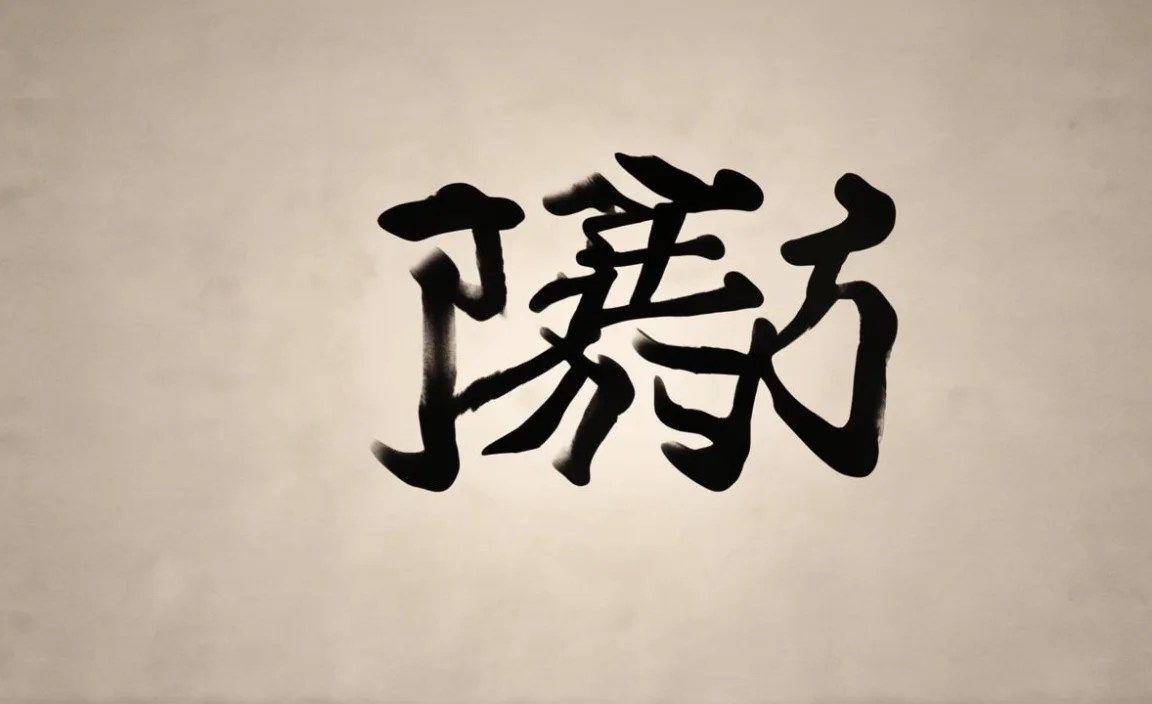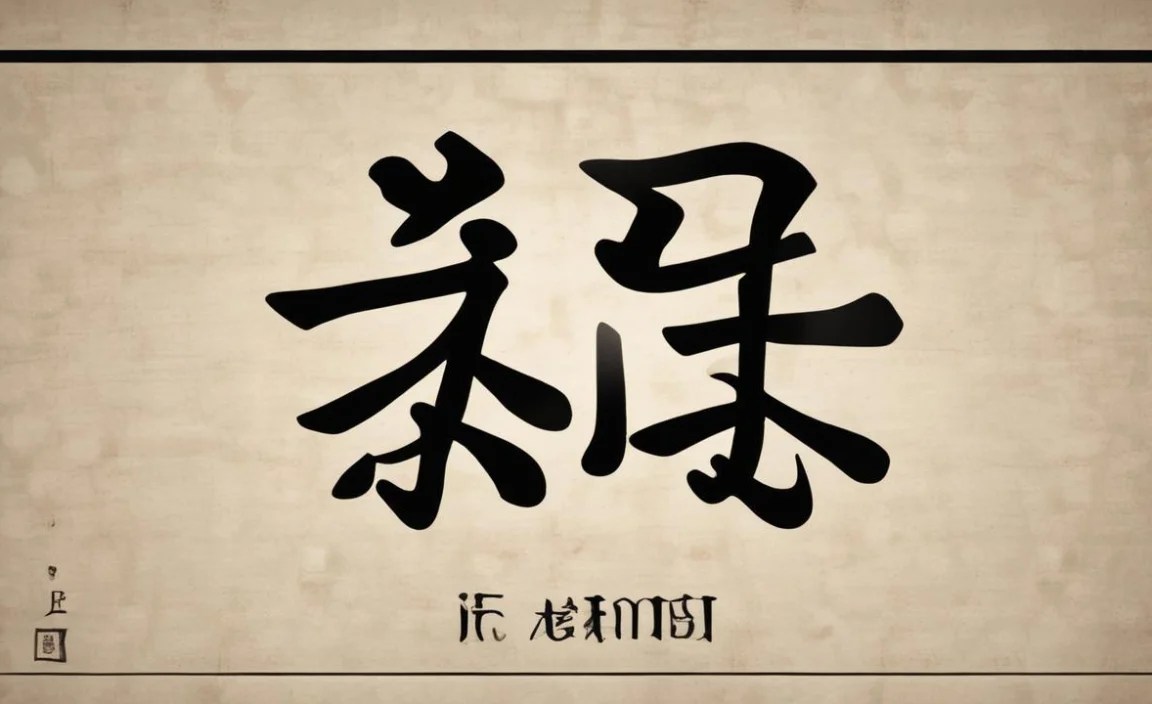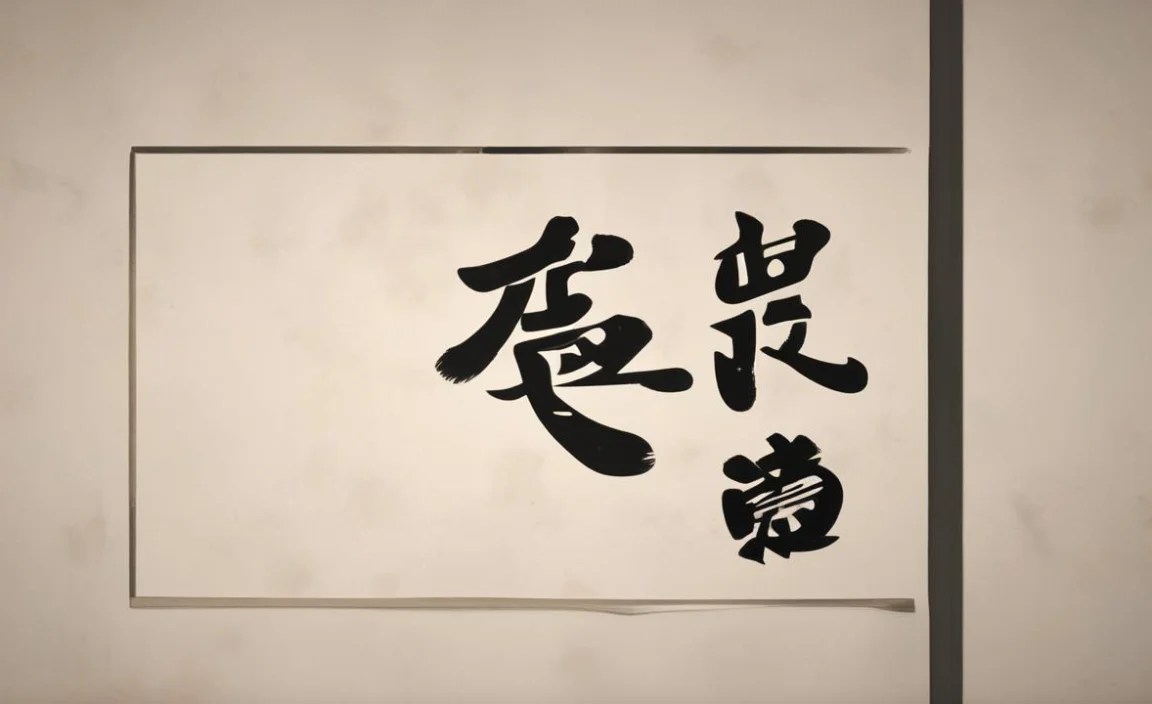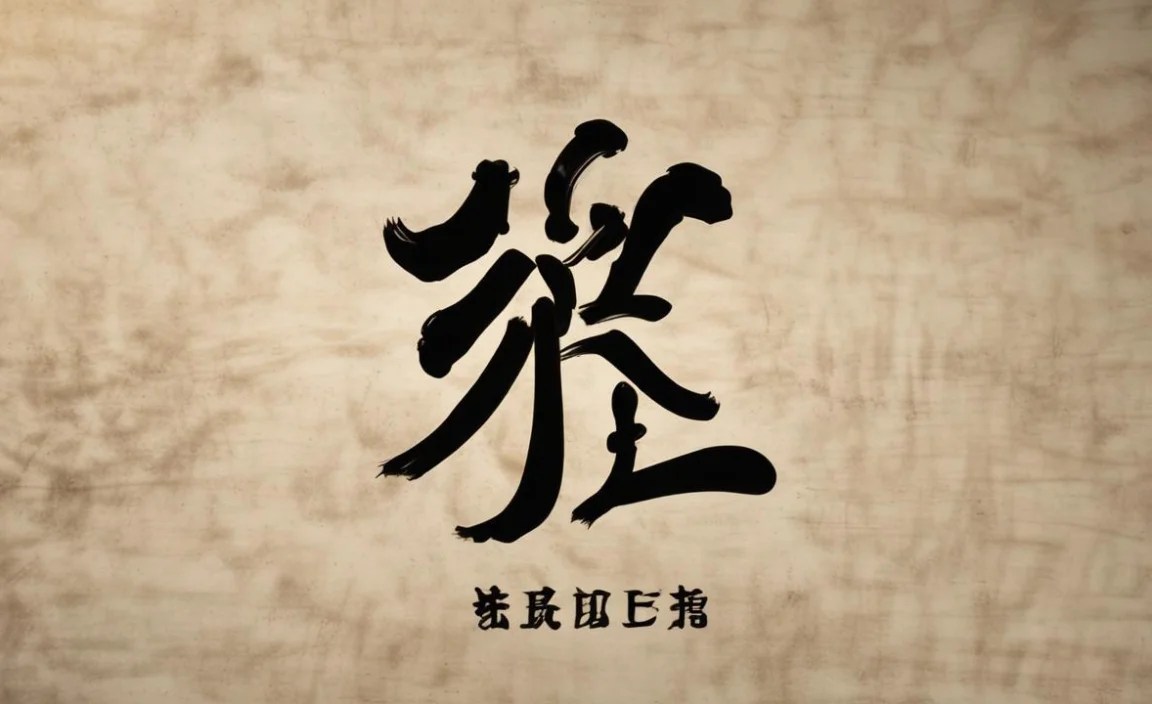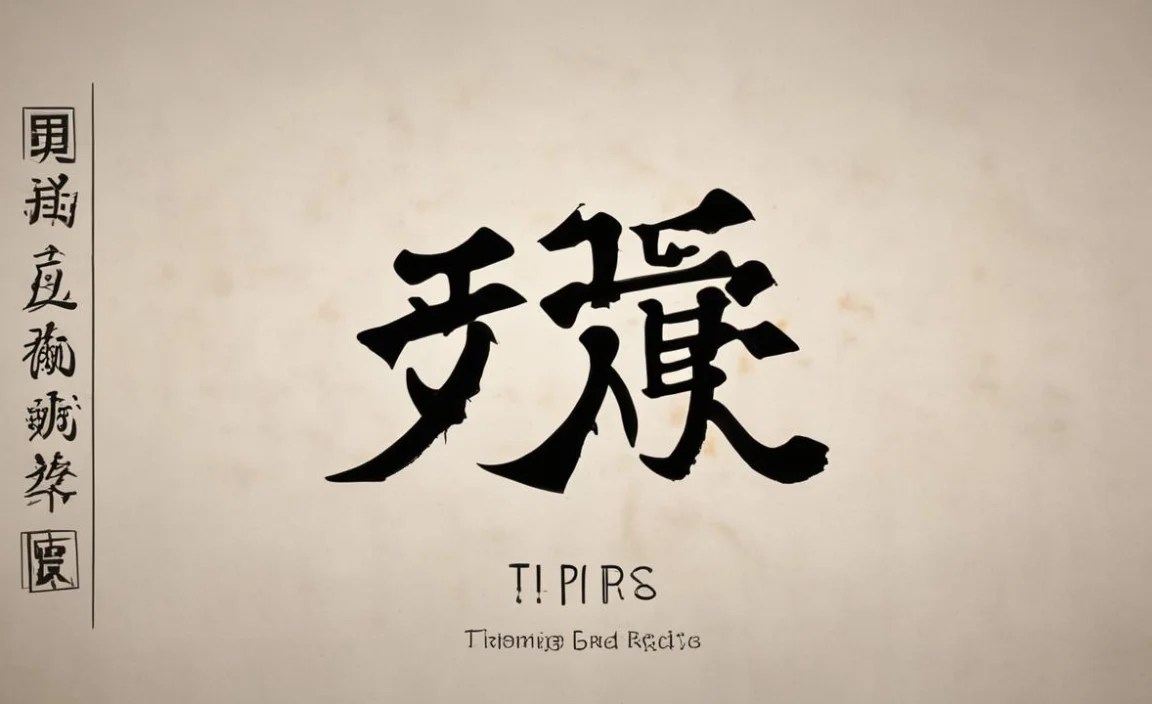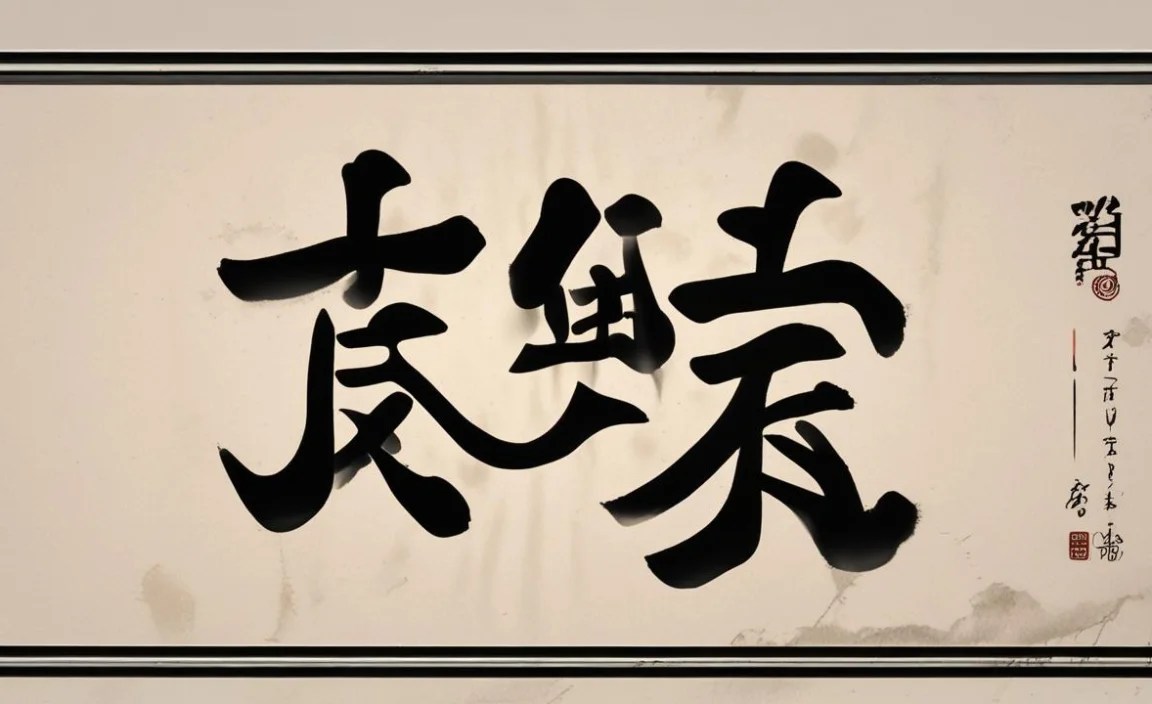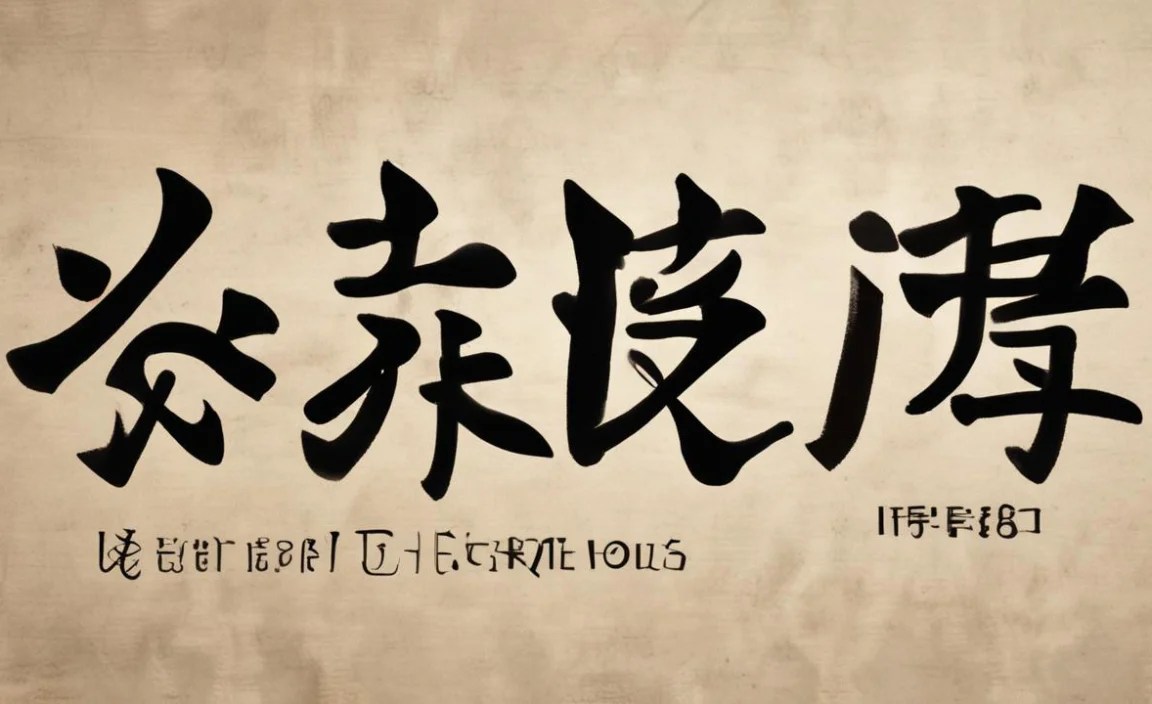
Choosing the right Kanji font for your project is crucial for maintaining readability and cultural authenticity. Japanese fonts are diverse, ranging from Mincho, Gothic, and Calligraphy styles to modern pixel fonts.
Designed by top Japanese type designers like Ryoko Nishizuka (Adobe), these fonts help bring depth and tradition to Japanese text-based designs. Whether you’re working on branding, print materials, or digital interfaces, selecting the right Japanese kanji font is key.
Key Factors For Selecting The Best Kanji Font
When choosing a Japanese font, consider these important factors:
- Font Style – Mincho (serif), Gothic (sans-serif), calligraphic, or modern styles
- Readability – Ensure clear strokes, especially for kanji characters
- Usage – Print, digital, branding, or signage
- Font Family Options – Variety of weights and styles for design flexibility
- Authenticity – Avoid faux-Japanese fonts; use actual kanji fonts
Popular Kanji Font Families
Here are some widely used Japanese kanji fonts categorized by type:
Mincho (Serif) Fonts
- Yu Mincho
- Kozuka Mincho
- Hiragino Mincho
Gothic (Sans-serif) Fonts
- Hiragino Sans
- Tazugane Gothic
- Meiryo
Calligraphy Fonts
- Outai Kaisho
- Kinrei Gyosho
- Kanteiryu Ultra
Pixel & Display Fonts
- M+ 1P
- Press Start 2P (Pixel Font)
- Misaki Font
Best Kanji Fonts By Category: Comparison
| Font Name | Style | Best For | Designer |
|---|---|---|---|
| Yu Mincho | Books, Print | Adobe / Monotype |
| Hiragino Sans | Gothic | UI, Websites | SCREEN Graphic |
| Tazugane Gothic | Branding, Ads | Monotype |
| Kinrei Gyosho | Calligraphy | Traditional Art | Nihon Literal |
| Misaki Font | Pixel | Games, 8-bit art | Unknown (Public) |
| M+ 1P | Sans-serif | Web, Digital | Coji Morishita |
1.What Are The Main Types Of Kanji Fonts?
The main types include Mincho (serif), Gothic (sans-serif), Calligraphic, and Pixel fonts.
3.What Is The Best Kanji Font For Tattoos?
Outai Kaisho and Kinrei Gyosho are great choices due to their brush-style strokes.
5.What’s The Difference Between Hiragana, Katakana, And Kanji Fonts?
- Kanji: Chinese characters used in Japanese writing.
- Hiragana: Native Japanese phonetic characters.
- Katakana: Used for foreign words and emphasis.
6.What Is A Mincho Font?
A Mincho font is a serif typeface with traditional stroke contrast, great for print.
7.What Is The Best Kanji Font For Readability?
Yu Mincho and Hiragino Sans offer excellent readability for long texts.